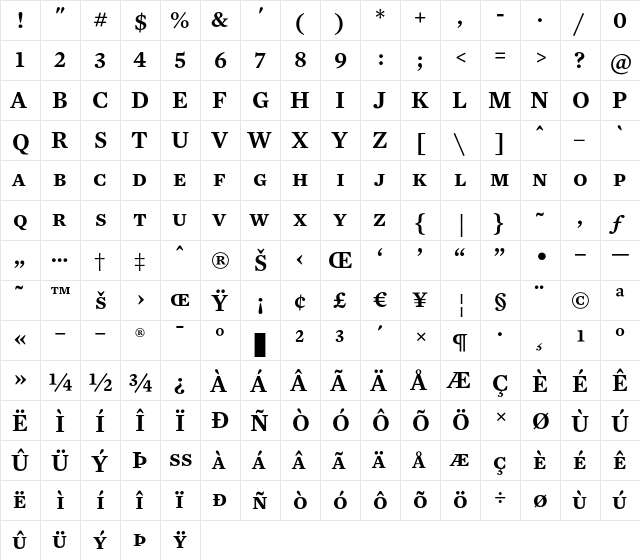
Mercury Text G1 Semibold SC
Design Context for Mercury Text G1 Typeface
Mercury Text G1 takes a measured approach to typography — its balanced proportions and neutral character make it a reliable workhorse for both digital and print work. The heavy weight commands attention and anchors typographic hierarchies.